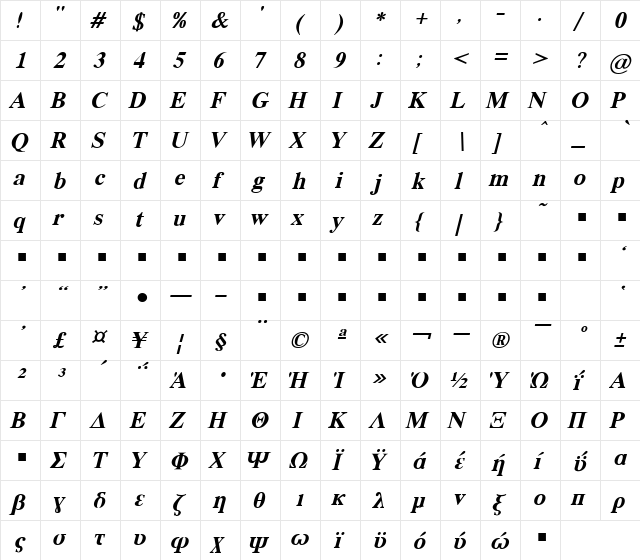
AWRomanGk Bold Italic
Design Context for AWRomanGk Typeface
AWRomanGk is a composed and adaptable typeface that performs quietly and consistently across a wide range of design contexts. The dynamic lean of this cut emphasises speed and emphasis in any layout. The heavy weight commands attention and anchors typographic hierarchies.